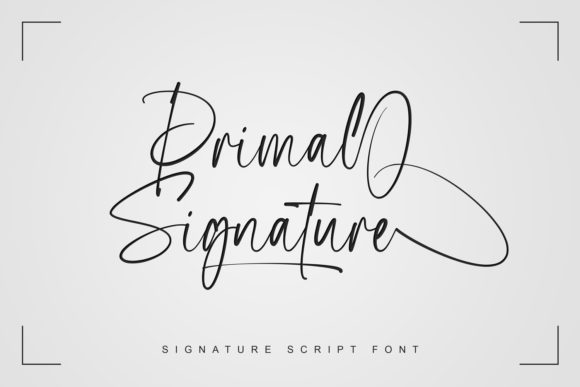
Introducing Primal Signature Font - the ultimate script font for your digital masterpieces!
Lose yourself in the captivating allure of Primal Signature, a thin-lettered and graceful script font that will elevate your designs to new heights. Its mesmerizing curves and ravishing style will leave an unforgettable impression on all who behold your creations.
Unleash your imagination and let Primal Signature guide your artistic journey. This font is the perfect companion for crafting elegant invitations, stunning logos, captivating social media posts, and any project that demands a touch of sophistication.
The beauty of Primal Signature lies not just in its aesthetics but also in its practicality. As a PUA-encoded font, you can effortlessly access a treasure trove of glyphs and swashes, empowering you to create designs that truly stand out.
With Primal Signature at your fingertips, you'll never have to settle for ordinary fonts again. Experience the joy of creating captivating designs that exude elegance and grace. Download Primal Signature today and embark on an extraordinary typographic adventure!